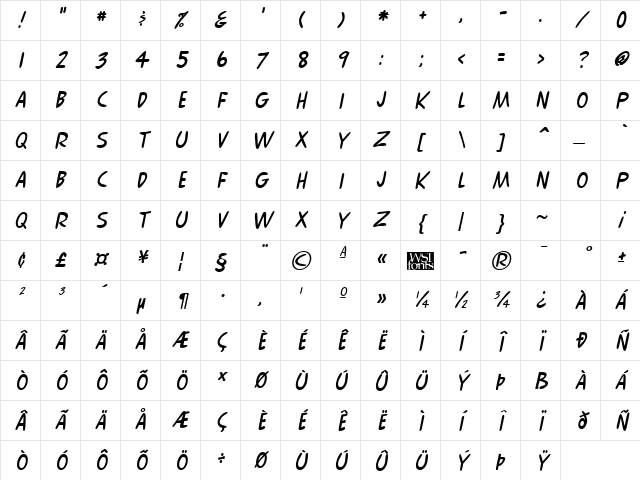
Complete Comix kursiv glyph index. Displaying only characters natively supported by Comix kursiv font.
Comix is a composed and adaptable typeface that performs quietly and consistently across a wide range of design contexts. The slanted form adds forward momentum and visual energy.